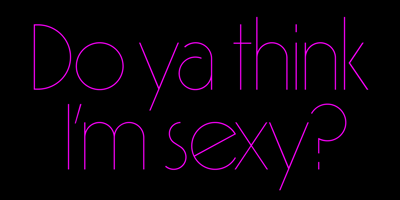
Virginia Neo Font Family was designed by Russell Bean and published by Type Associates. Virginia Neo contains 6 styles and family package options. Virginia Neo is more than an update to the original Virginia family, designed in 1970 and strongly influenced by the popularity of Futura and Kabel in that era. Virginia Neo is a completely redrawn version based on the original design which won its designer first place ahead of 5,000 other submissions to the Lettergraphics International Typeface Design Competition in the same year. The original typeface family comprised 5 weights, the lightest of which was omitted from the initial 2008 digital offering but has now been included in the Neo version, along with a new Heavy weight rounding out a family of 6. Each typeface includes more than 450 glyphs, enough to satisfy more than 80 languages plus a smattering of ligatures, useful geometric ornaments and arrows. Virginia Neo fits the compact, comfortable-tightness of seventies-retro typography currently re-emerging in today’s advertising. Its high readability, femininity and elegance makes it suitable for subheads, headlines, posters, branding and the web.